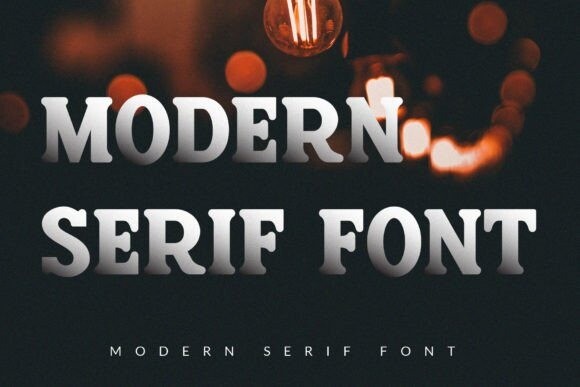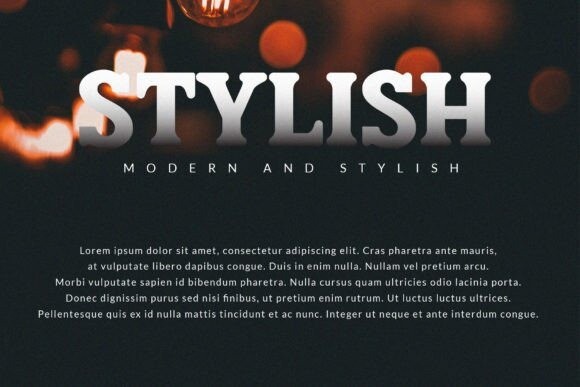
Stering Font
Stering is a serif typeface that is simple, elegant, and classy – This modern font is perfect for logos, magazines, social media, and many other things. For those of you who need an elegant, simple, classy, ​​chic, and modern touch to your designs, this font is made for you! Easy to match with a great variety of projects.